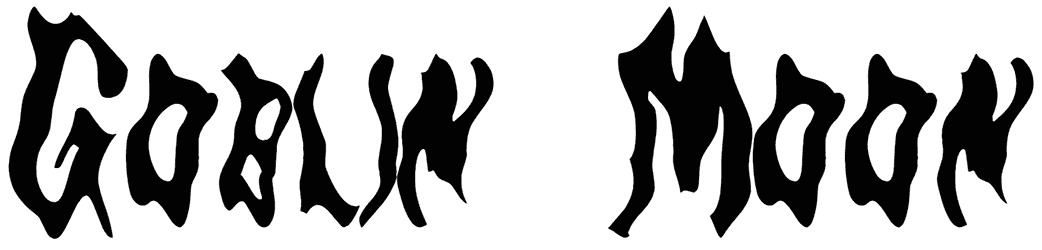
Goblin Moon Font
Designed byMarty Bee
Have you ever looked at the image of the moon in water? Goblin Moon evokes this visual context for you. This trembling font, which is included in horror fonts, refers to the fears that may break the courage of any human being.
So if you want a font that creates supernatural terror at the edge of your audience’s understanding, Goblin Moon is for you. It doesn’t include small letters and is suitable for designing crime book titles and horror movie posters.